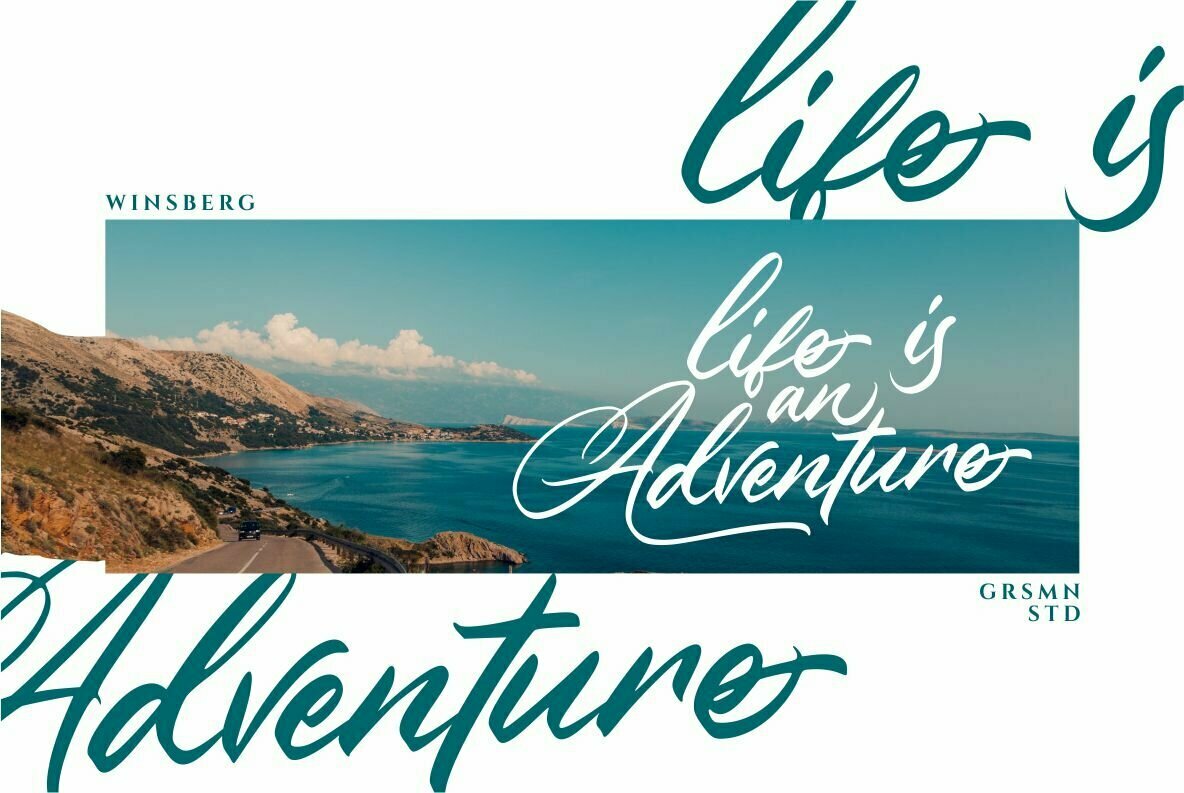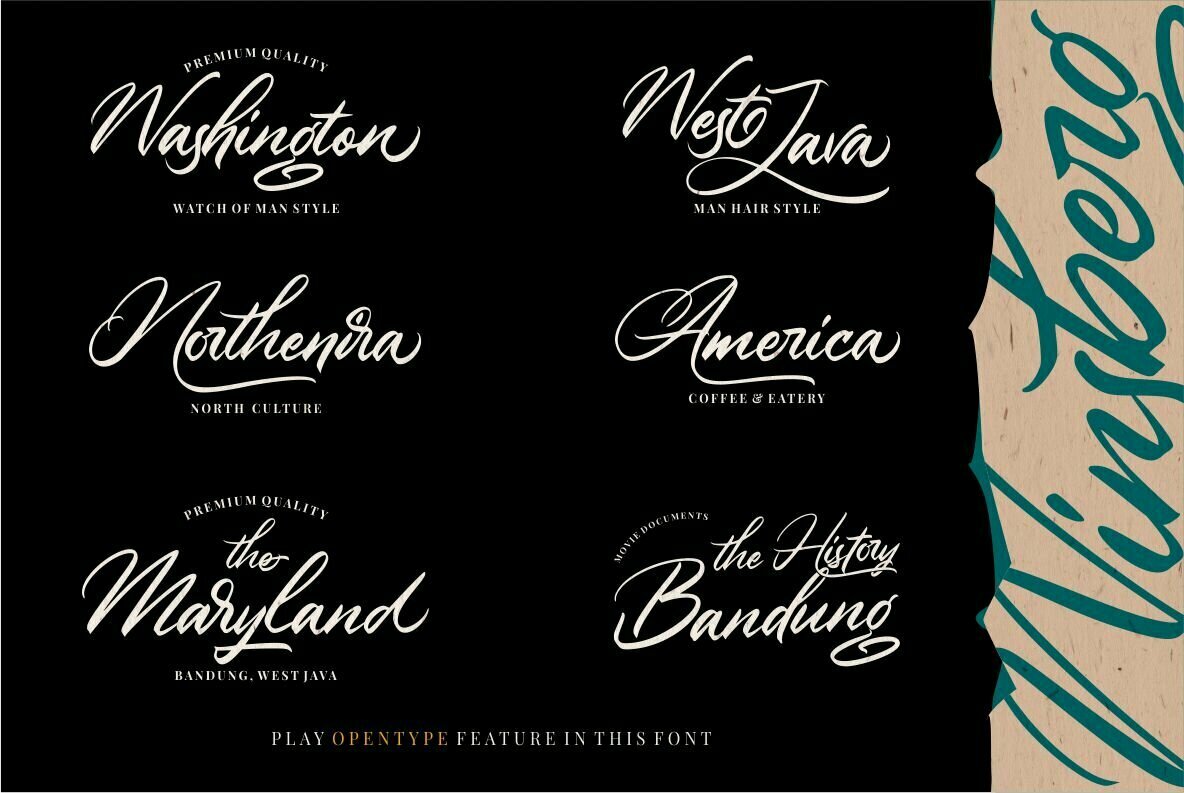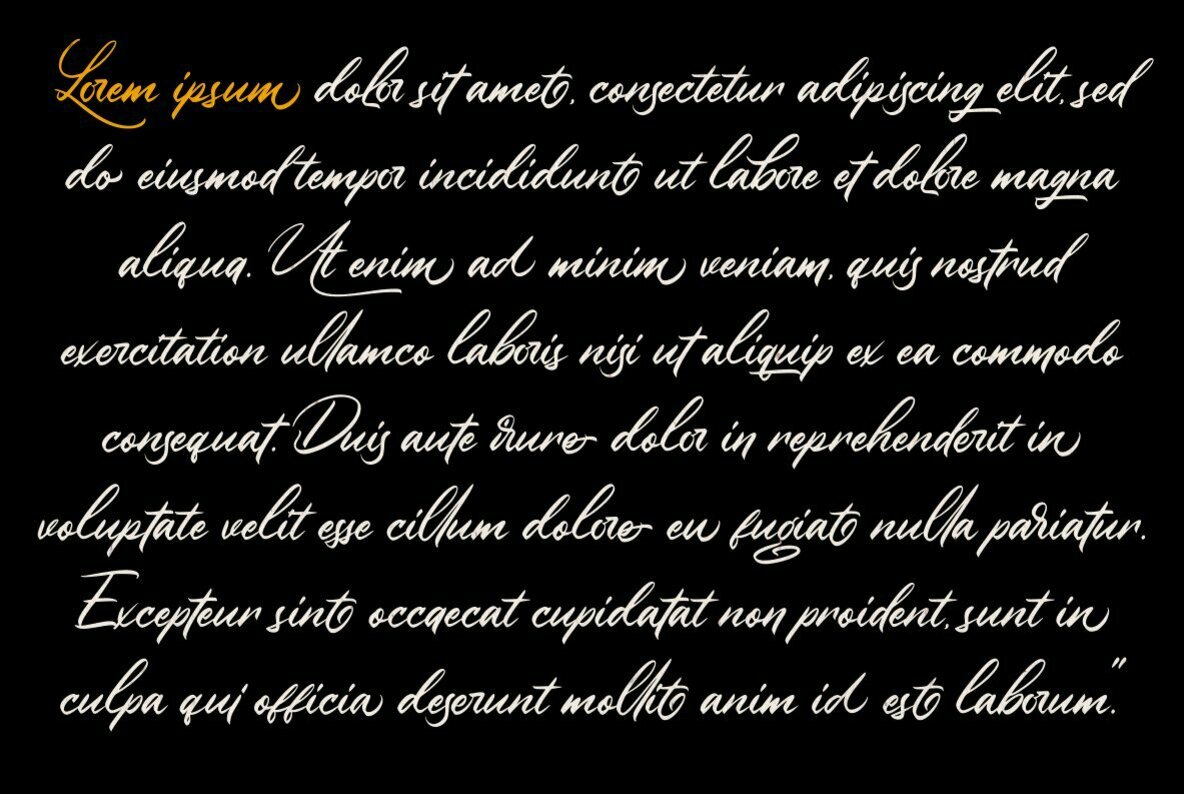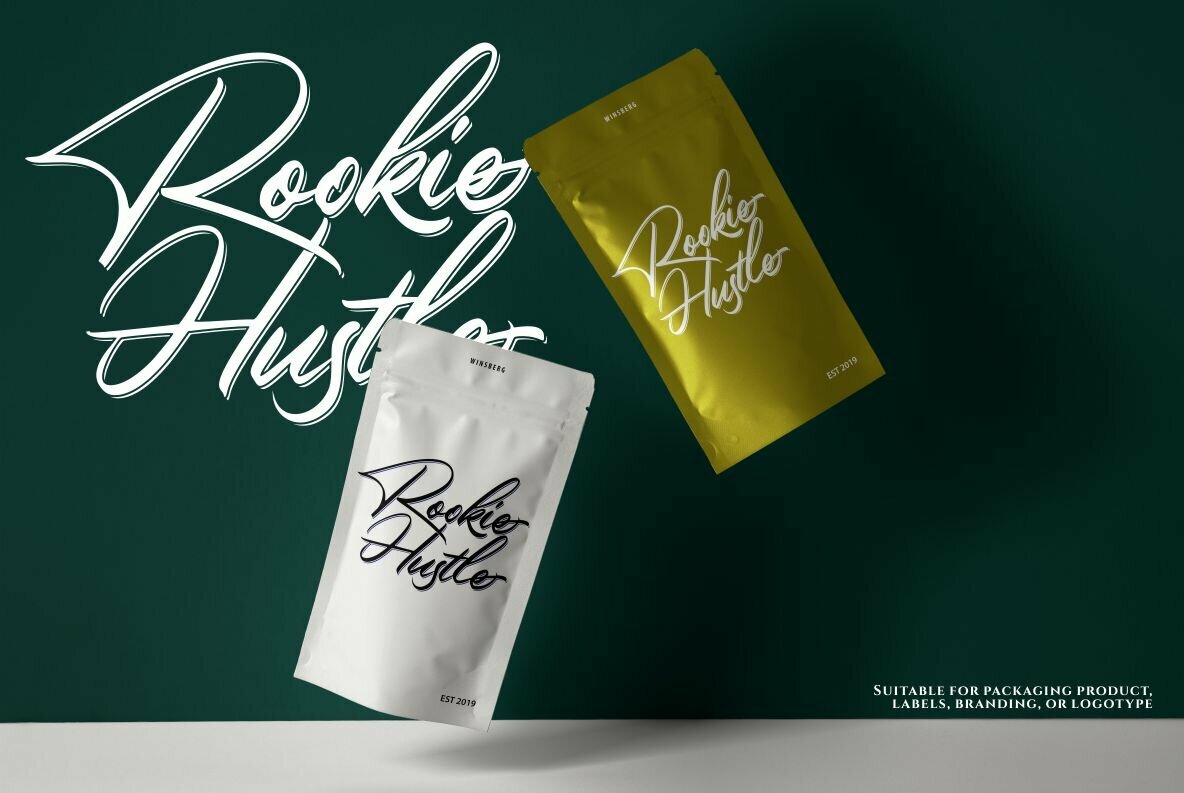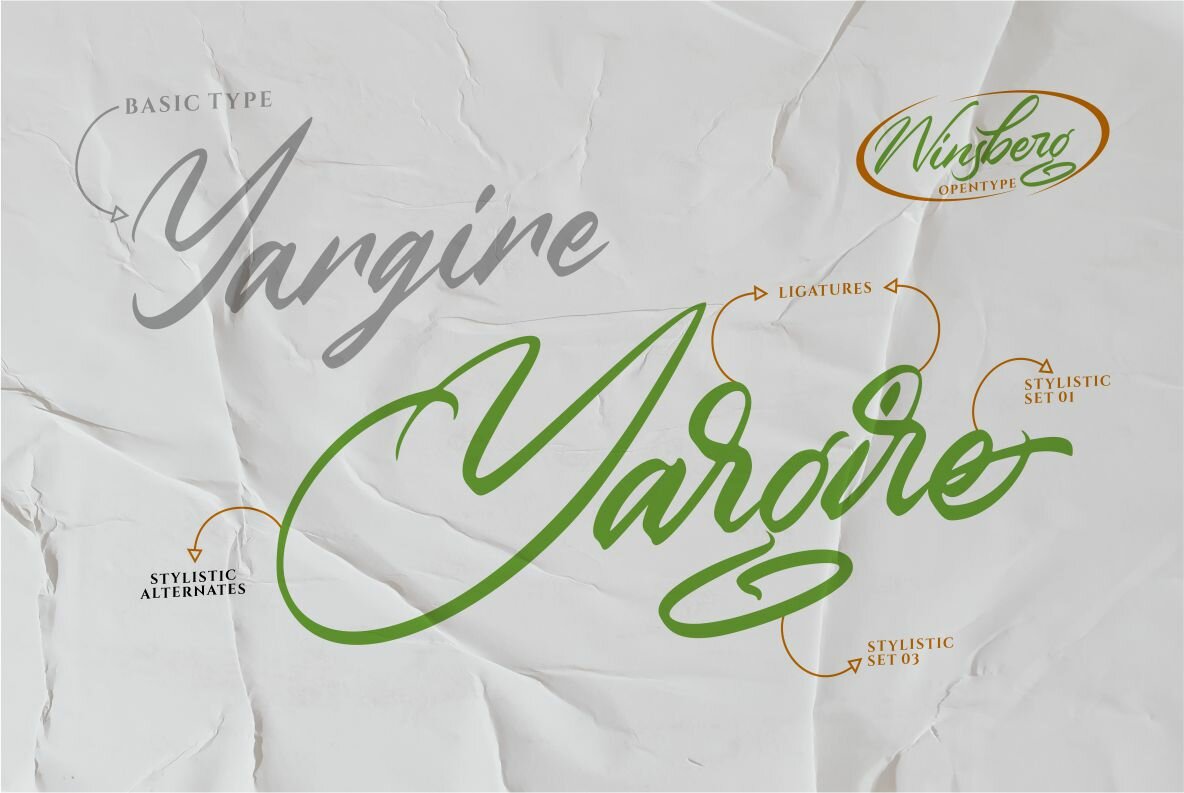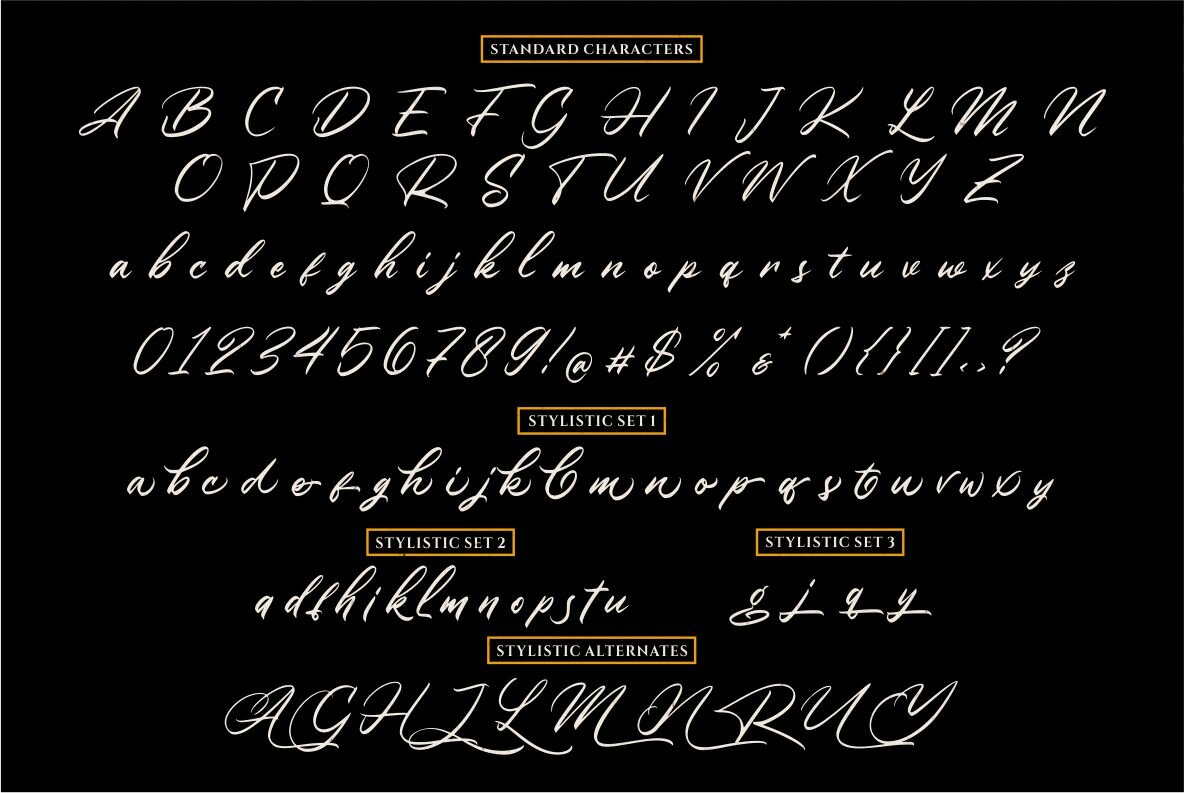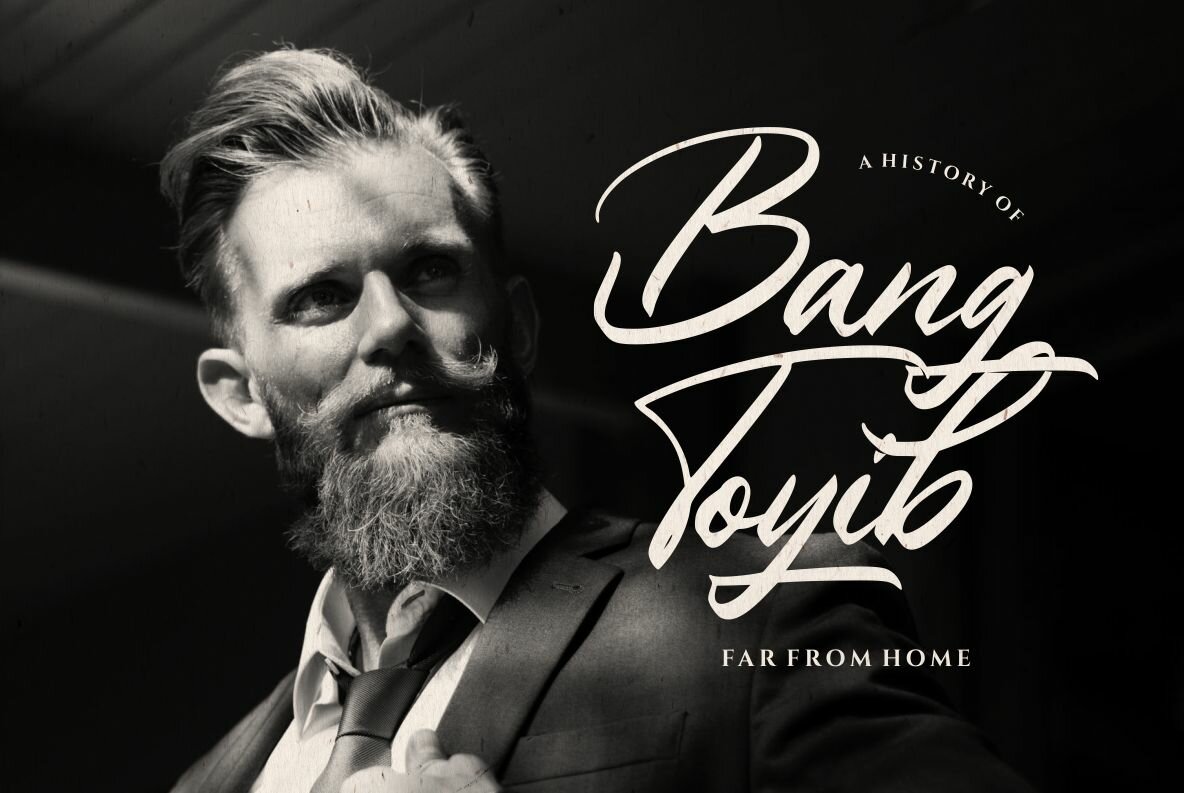
Winsberg
Winsberg by Risman Ginarwan is a typeface born from the nuances of hand-drawn artistry. Its organic lines and natural flow make it an ideal choice for projects that require an authentic and personal touch. Features:Winsberg: Hand-Drawn Aesthetic for Versatile Media